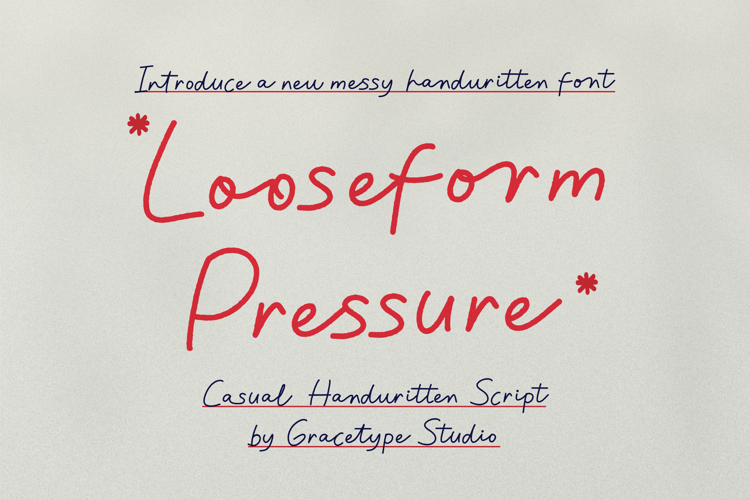
Looseform Pressure Font
Looseform Pressure | Casual Handwritten Script is suitable for any projects such as: logos, branding projects, homeware designs, product packaging, mugs, quotes, posters, shopping bags, t-shirts, book covers, name card, invitation cards, greeting cards, label, photography, watermark, special events, and all your other lovely projects that need a Script taste.